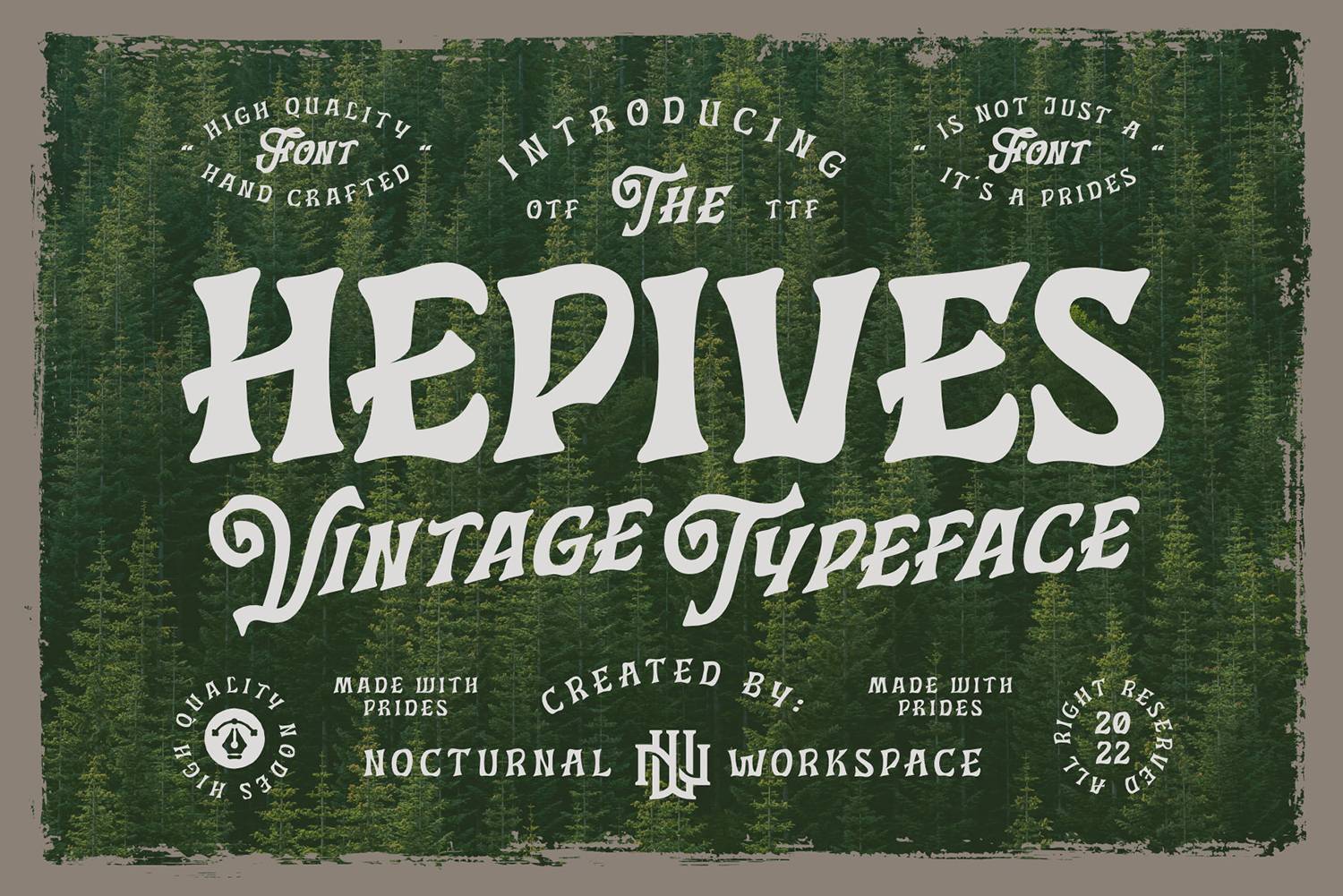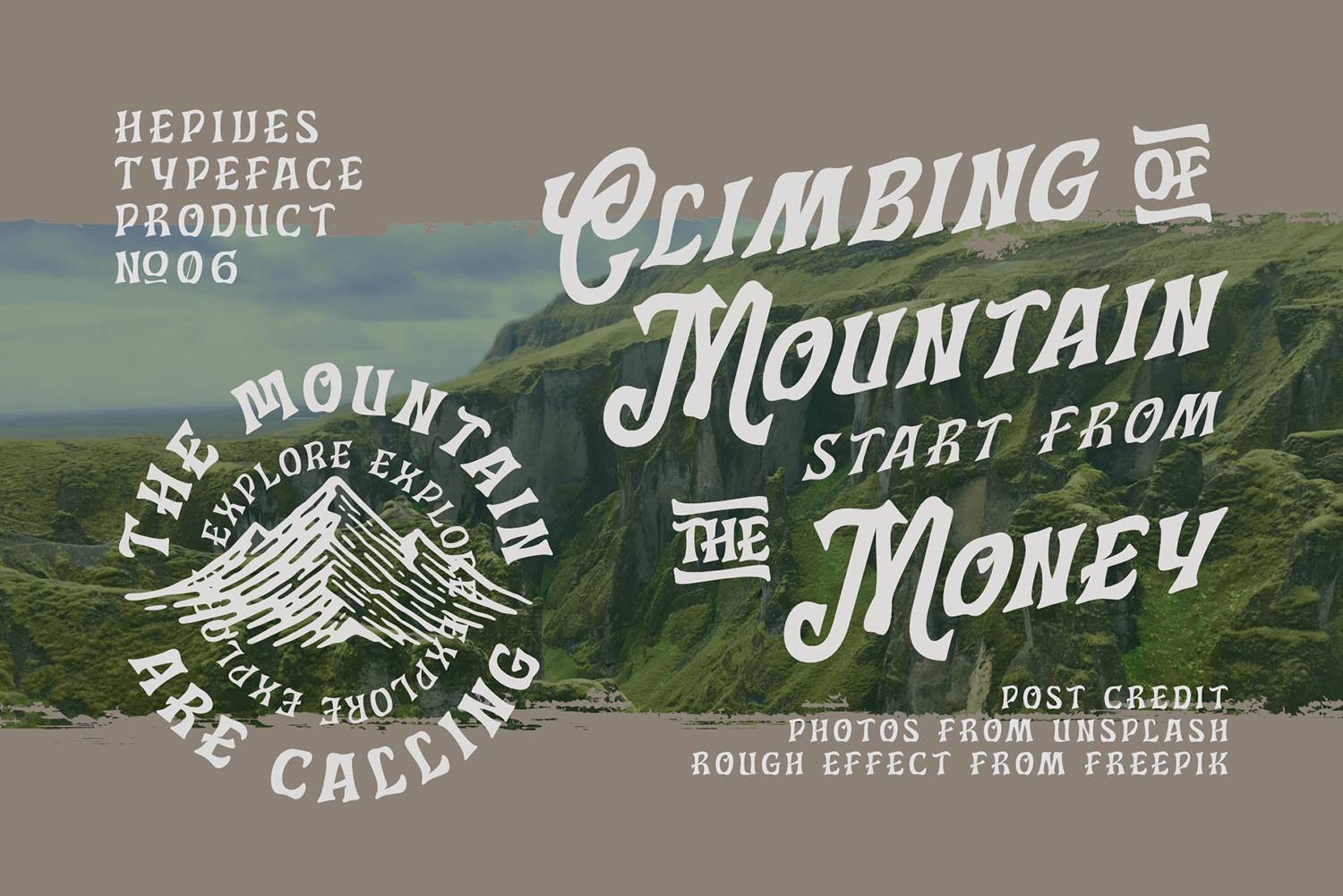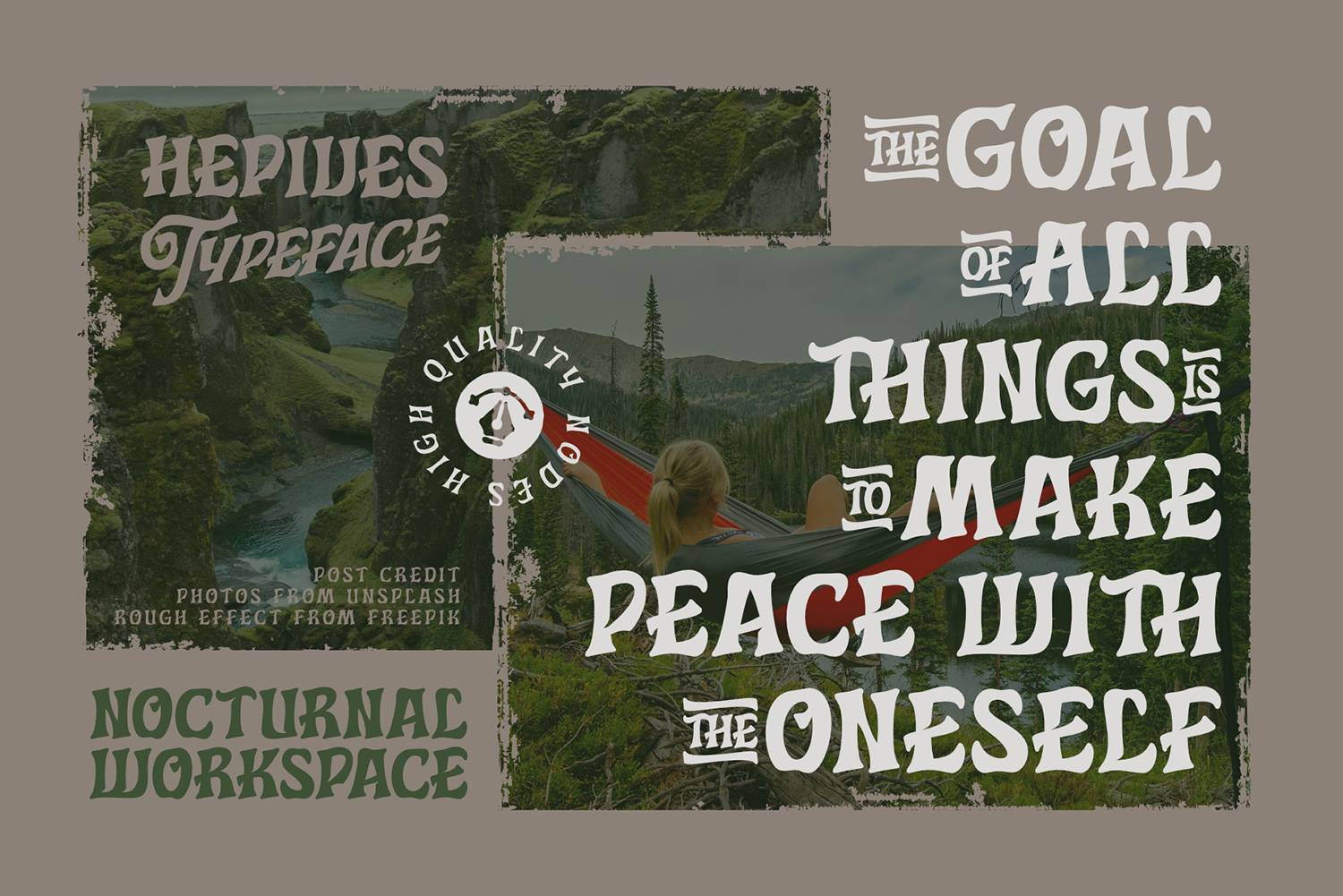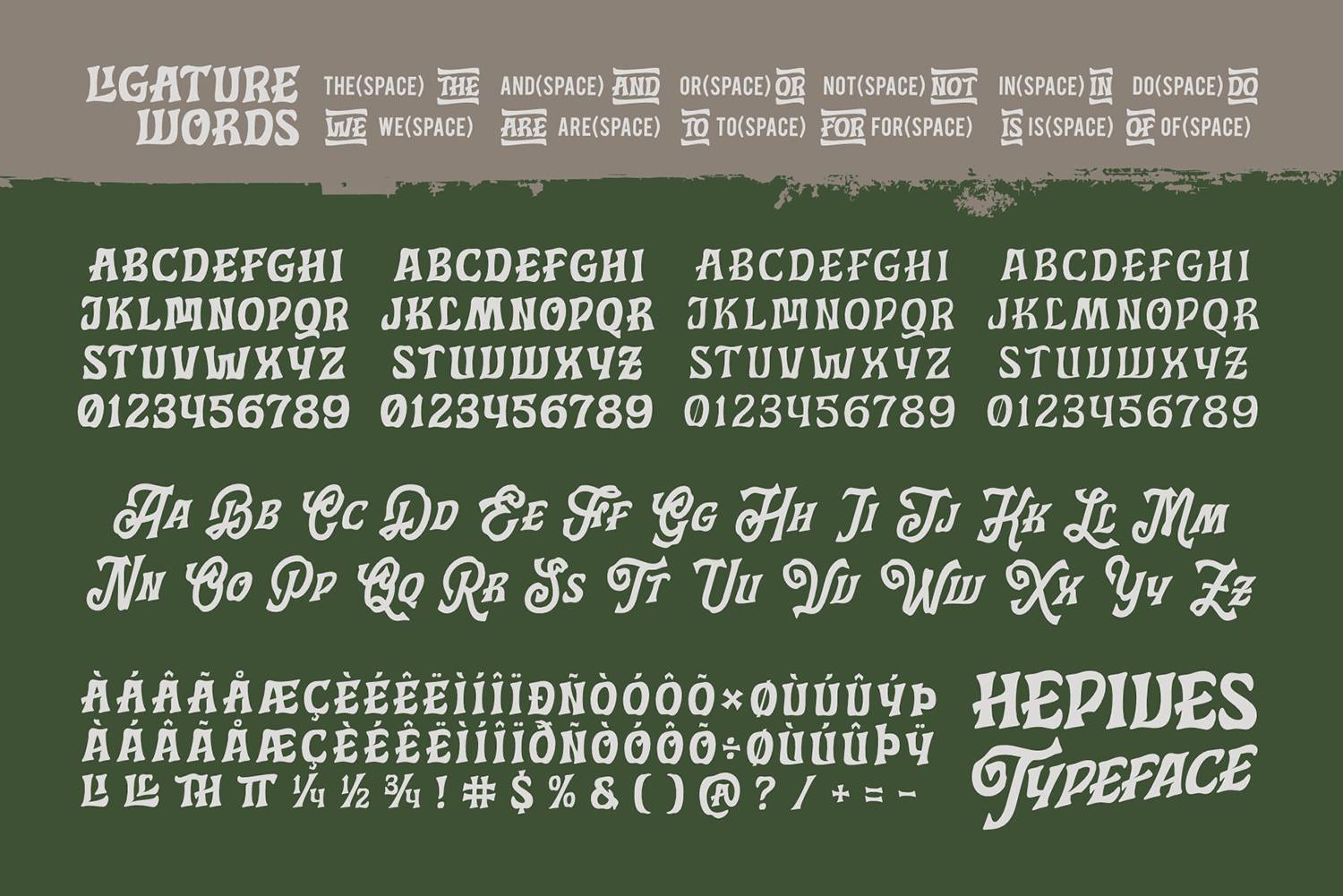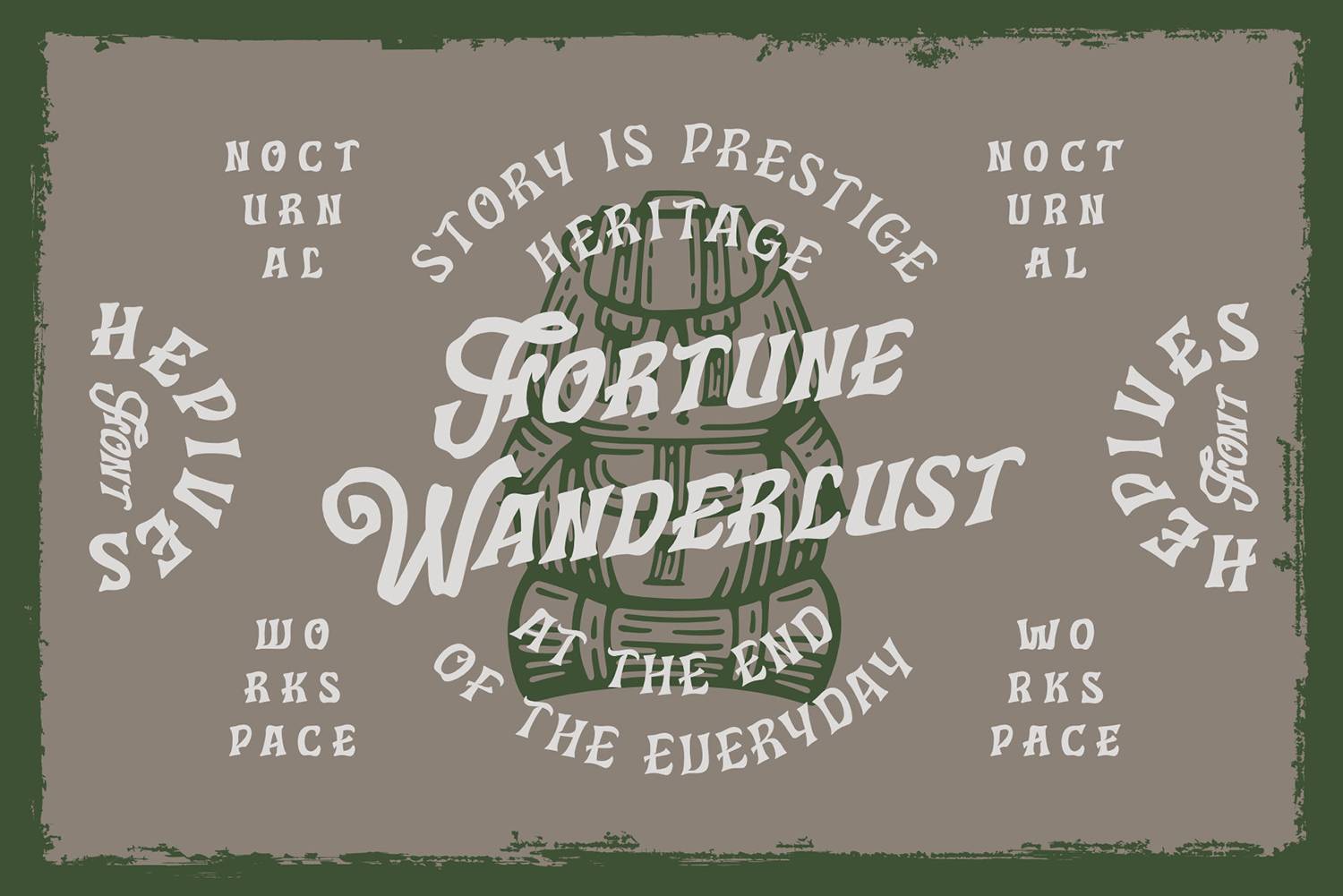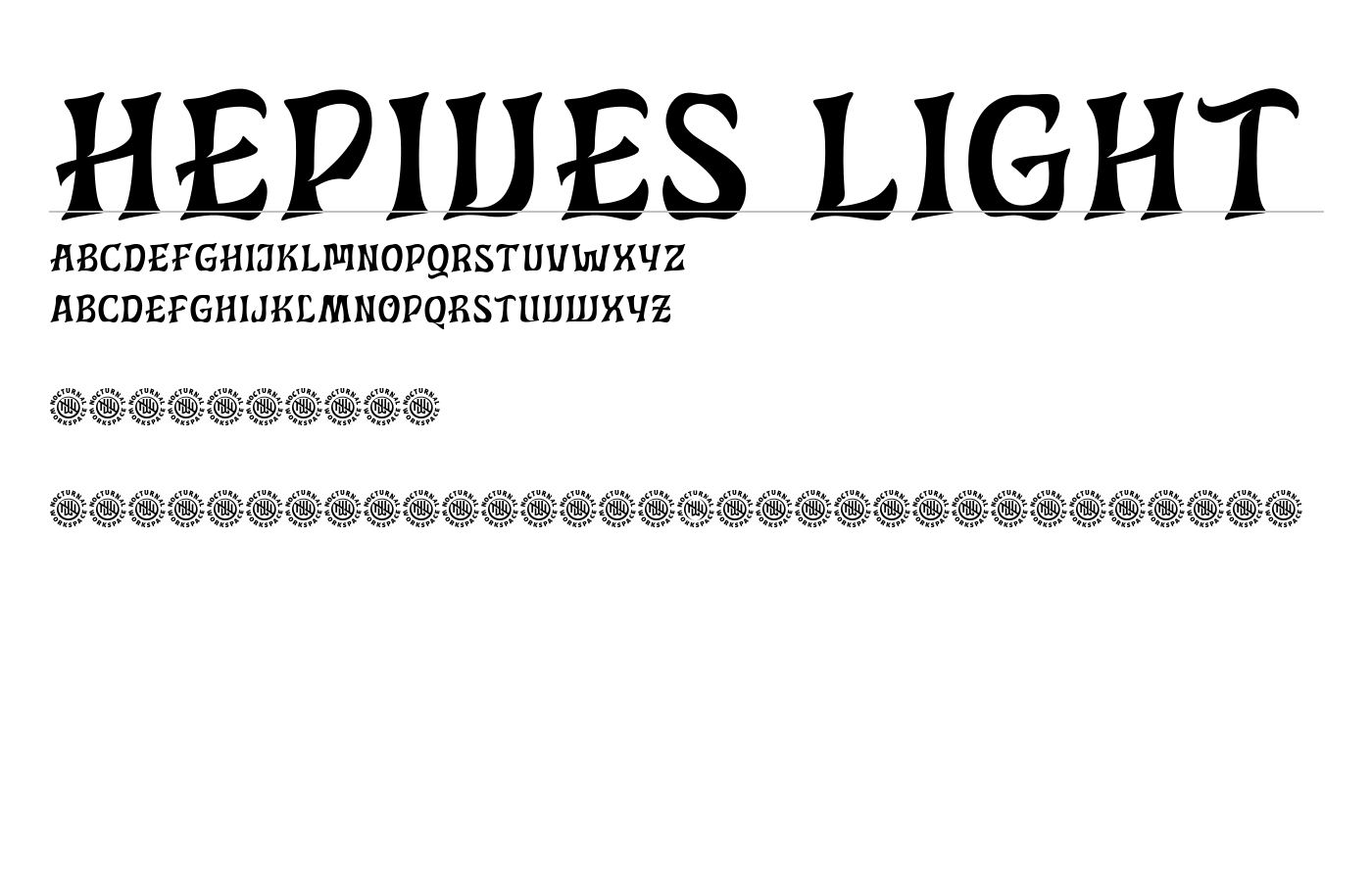
Hepives Light is a distinctive serif font with a playful and slightly whimsical character, featuring sharp, irregular serifs and dynamic strokes that create a lively rhythm. Its medium contrast and upright letterforms give it a casual yet confident feel, making it ideal for creative branding, headlines, or editorial use where a unique, artistic touch is desired. This font works well to add personality and charm while maintaining legibility, especially in display contexts.
| Designer | Tirta Sudibya |